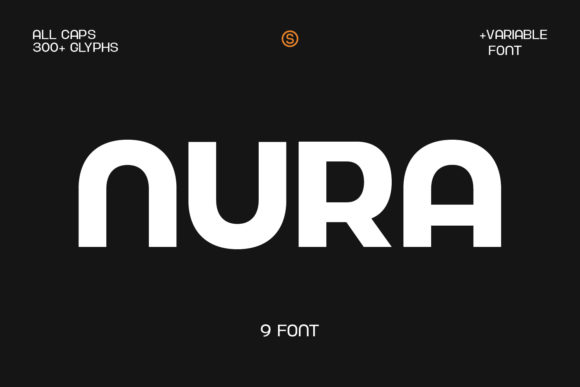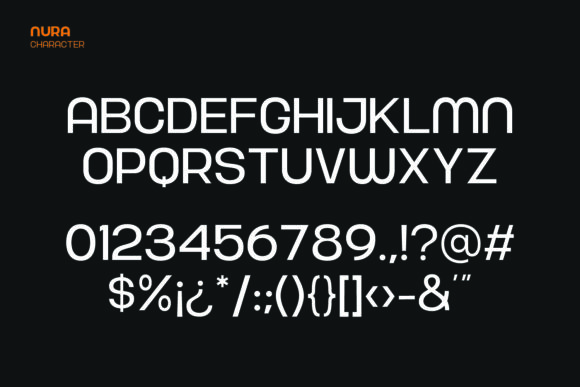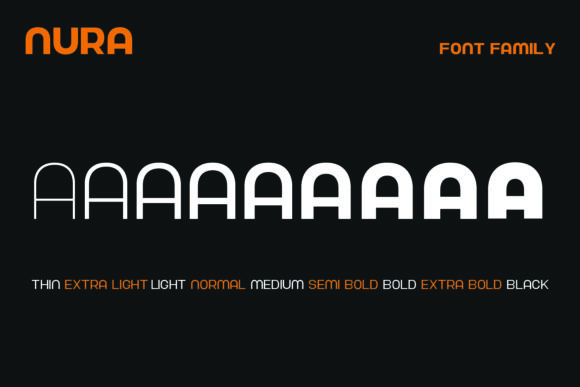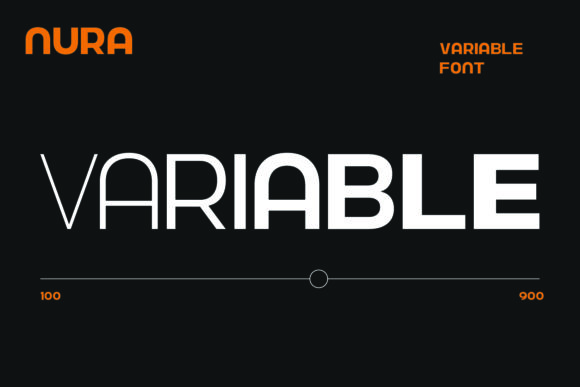
Nura Font: Modern Sans Serif for Logo Design & Headlines!
About the Nura Font
Crafted with precision, the Nura Font is ready to bring your ideas to life. Nura is a simple and neat sans serif font. This beautiful and professional typeface is suitable for posters, headlines, block letters, subheadings, logo designs, branding and so much more.
Nura’s clean lines and geometric structure make it ideal for modern branding projects, particularly those conveying professionalism and sophistication. It excels in headlines, logos, and short-form text, adding a touch of contemporary elegance. However, its minimalist nature makes it less suitable for extended body copy or user interfaces where readability over long stretches is paramount.
Pairing Nura with a warm serif like Garamond for body text creates a pleasing contrast, balancing its modern geometry with a touch of classic sophistication. For a bolder aesthetic, consider pairing it with a geometric sans-serif such as Futura, emphasizing its structural integrity. Alternatively, a playful script font could add a touch of personality to a design featuring Nura.
Nura’s overall personality is best described as clean, modern, and confident. It suits brands aiming for a sophisticated yet approachable image, aligning well with technology, design, or corporate identities seeking a contemporary feel.